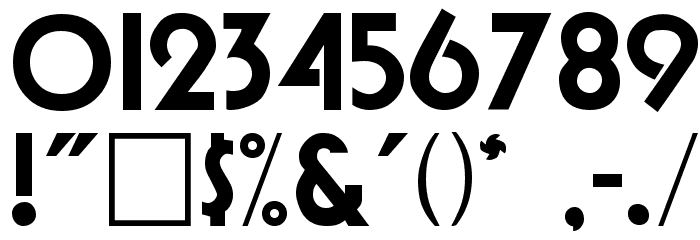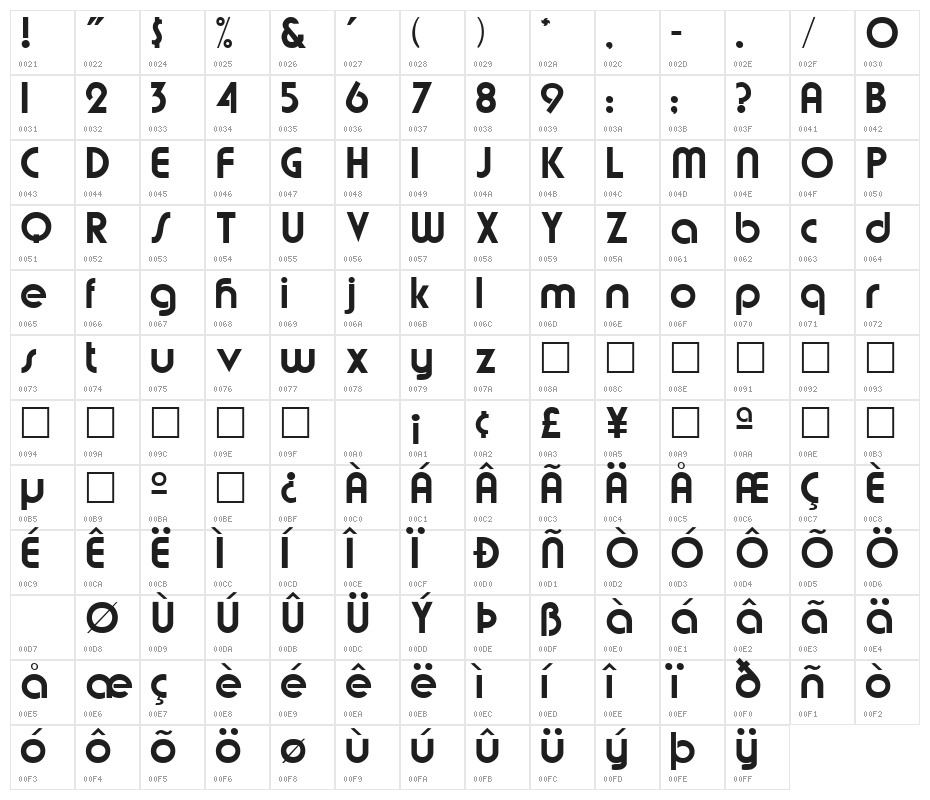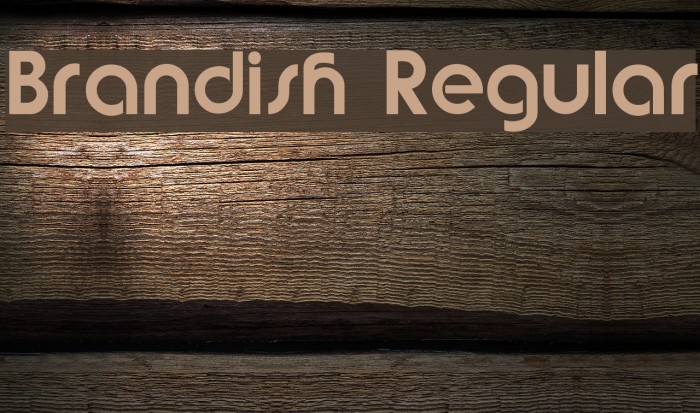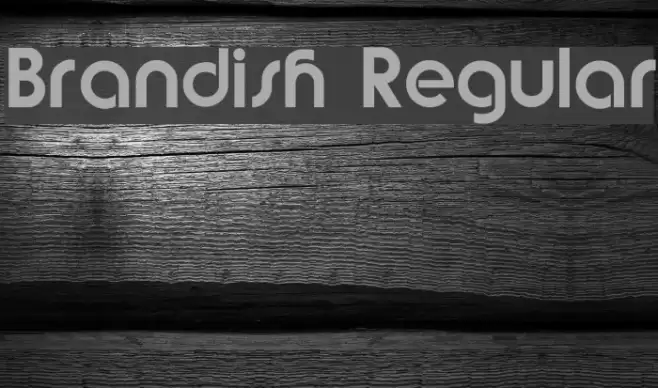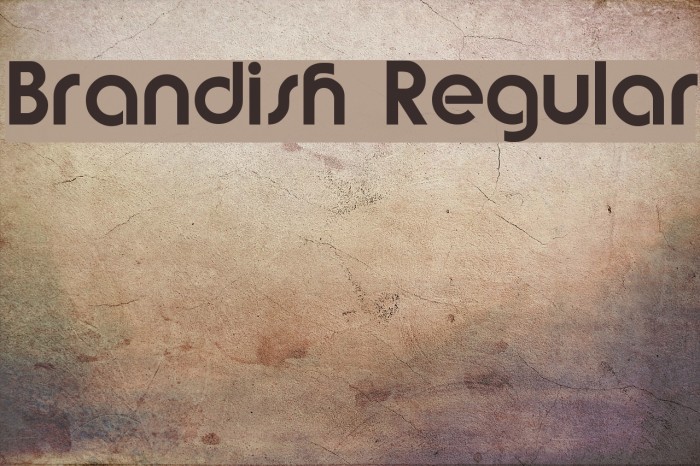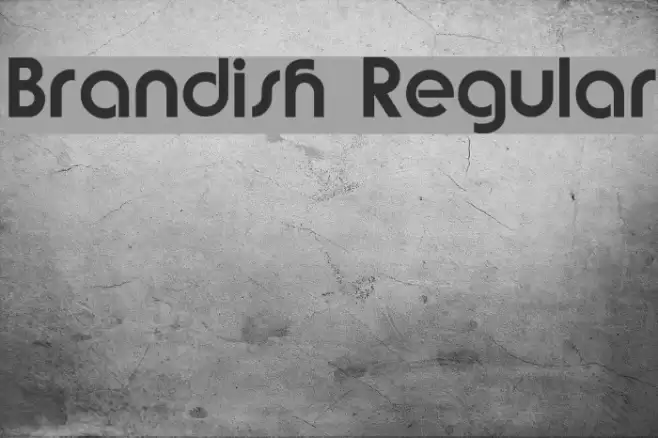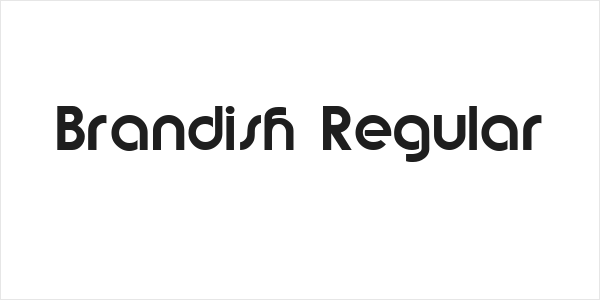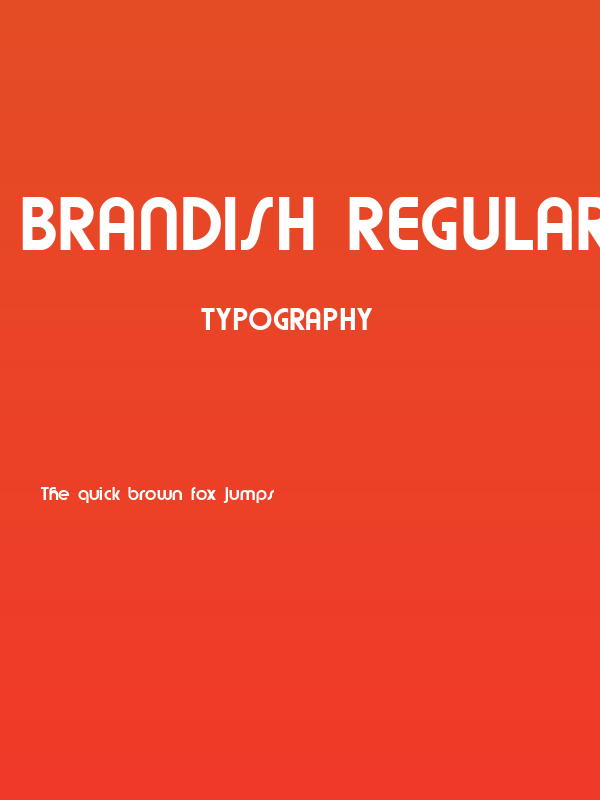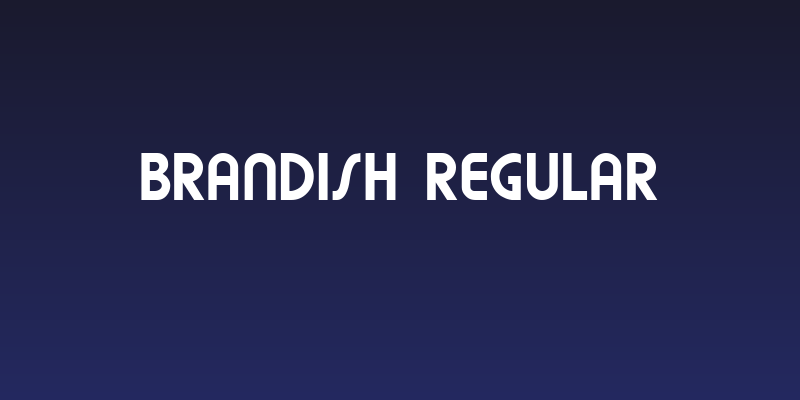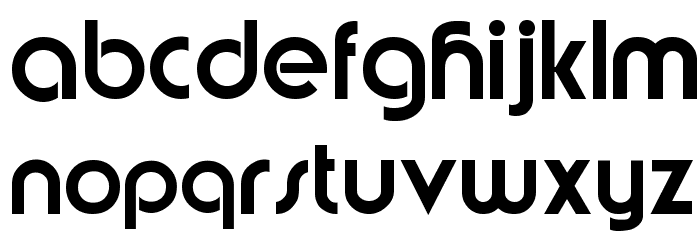
Brandish Regular Font
Brandish Regular Description
This font features a modern and sleek design with smooth, rounded edges and a geometric structure. The uppercase and lowercase letters maintain a consistent style, with a focus on simplicity and readability. The numerals are bold and distinct, ensuring clarity in various contexts. Special characters are well-integrated, offering a cohesive look across all elements. The overall appearance is clean and professional, making it suitable for a wide range of applications.
| Use Case | Headlines, Logos, Digital media |
| Proposed Projects | Ideal for branding, advertising, digital media, and editorial design projects. |